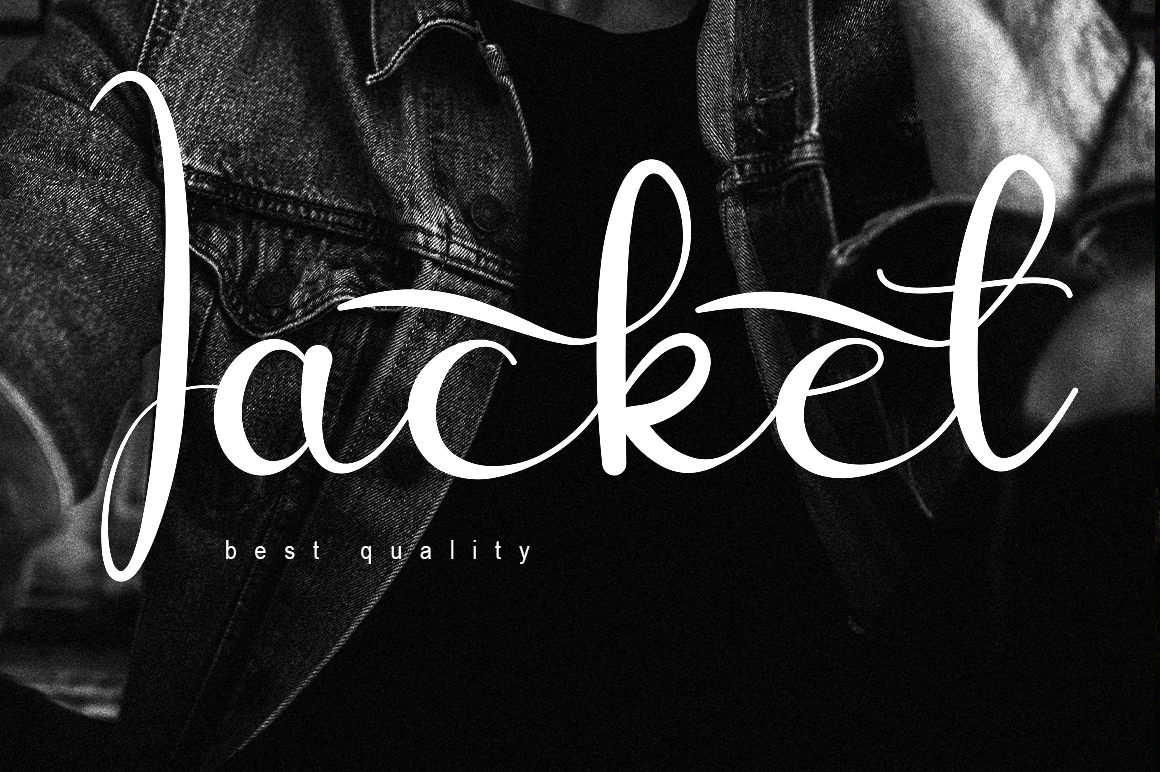
Lili Rainy Script Font
This is an enchanting handwritten font. It will add a luxury spark to any design project that you wish to create! This font is PUA encoded which means you can access all of the amazing glyphs and ligatures with ease!